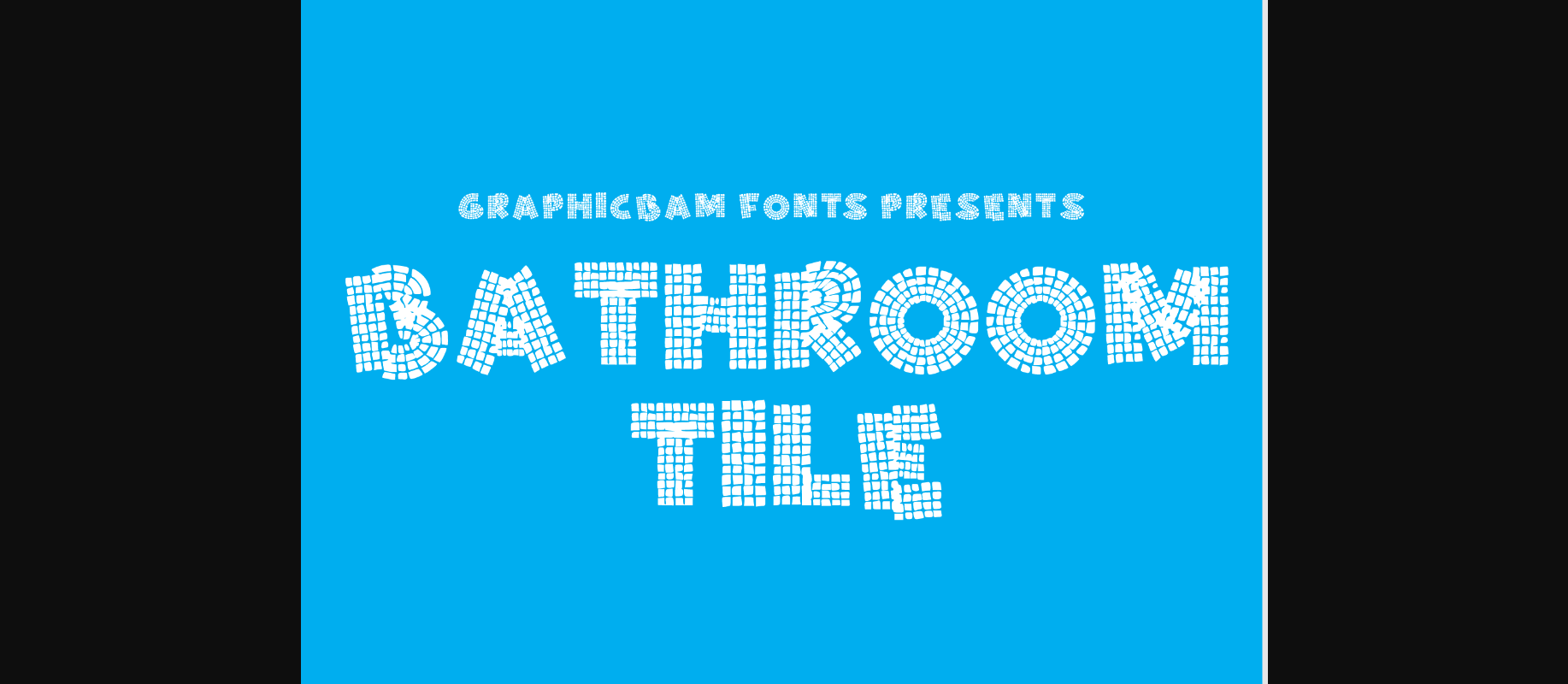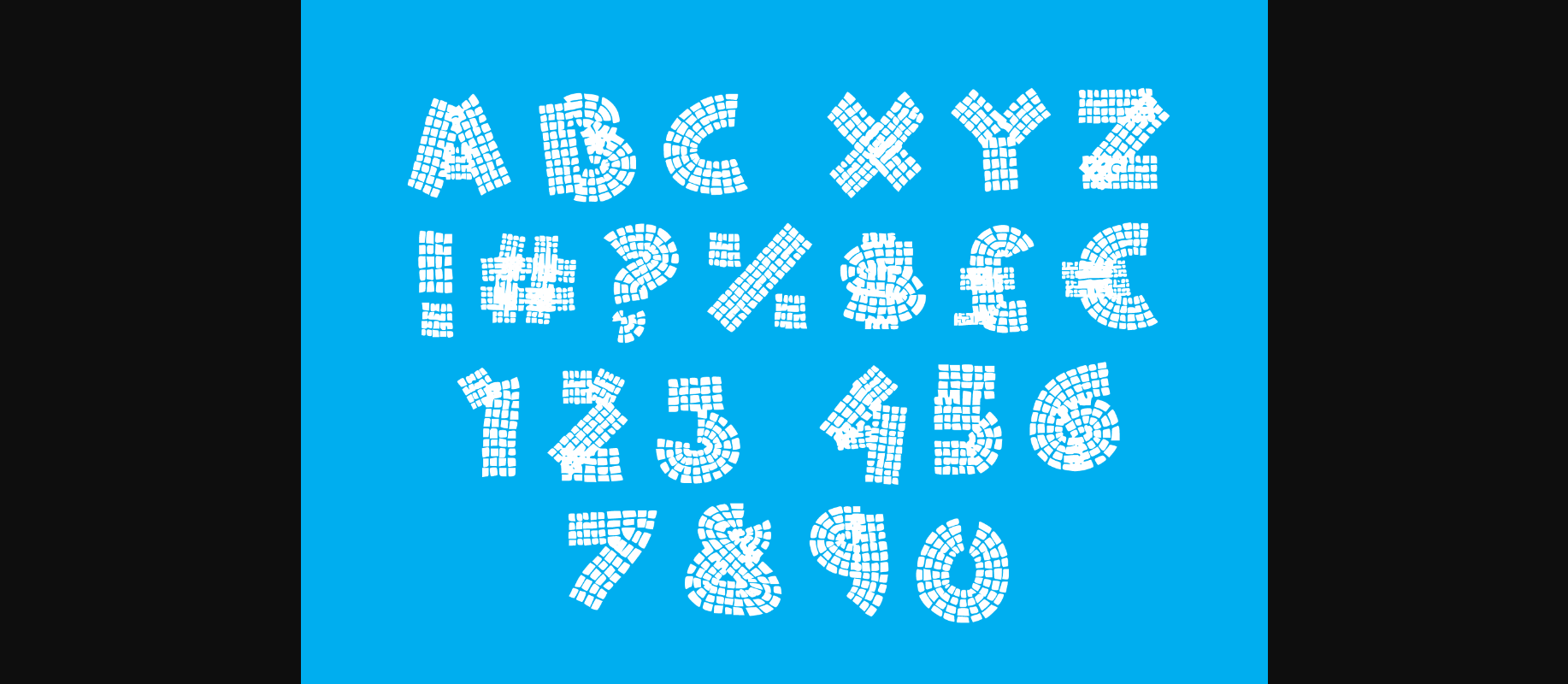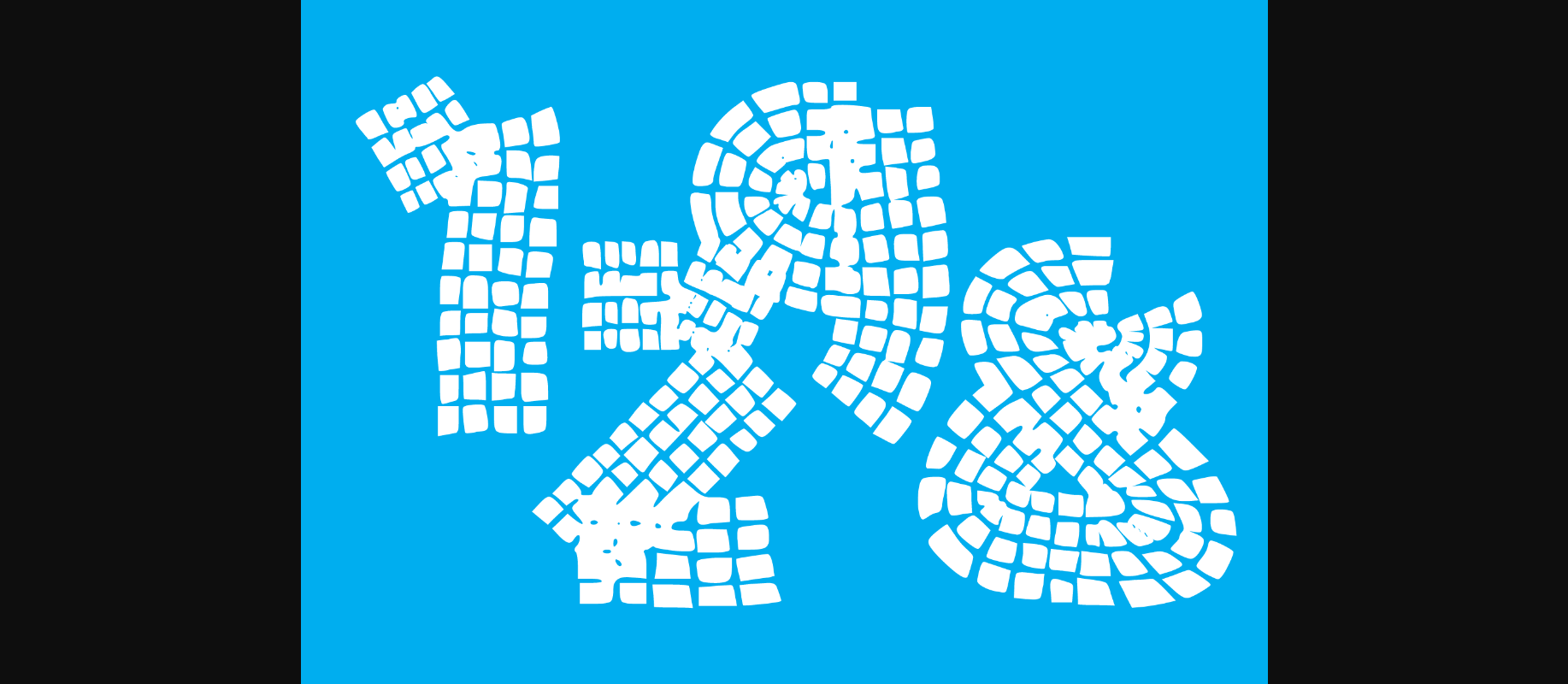
Bathroom Tile Font
About Bathroom Tile Font
Bathroom Tile is a cool, quirky and unique decorative font. It appears as though its characters were created out of little squares. Add this cool looking font to your designs, and they will instantly stand out.